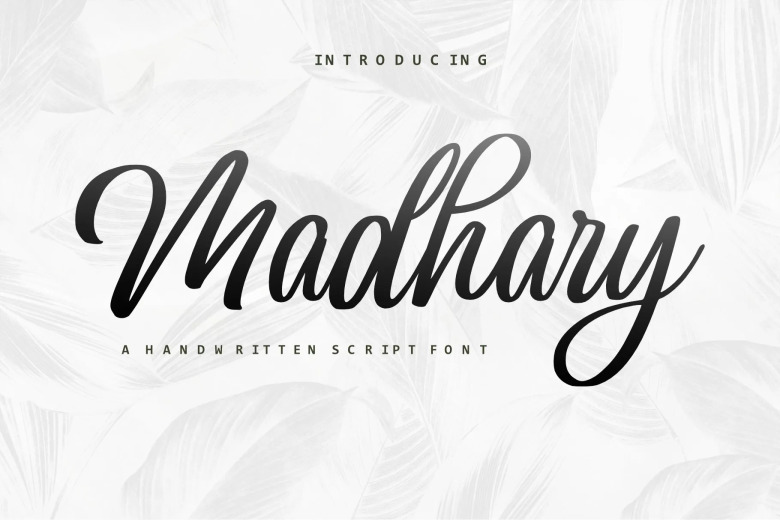
Madhary Font
Madhary is a chic and refined script  Handwritten Font with stylish ligatures that make this font the perfect match for every project. The following fetching letter font is same stylish consisting of a fashionable style script that looks classy and stylish at the same time. This font was intentionally crafted to resemble natural handwriting form as closely as possible.
Madhary Handwritten Script Font